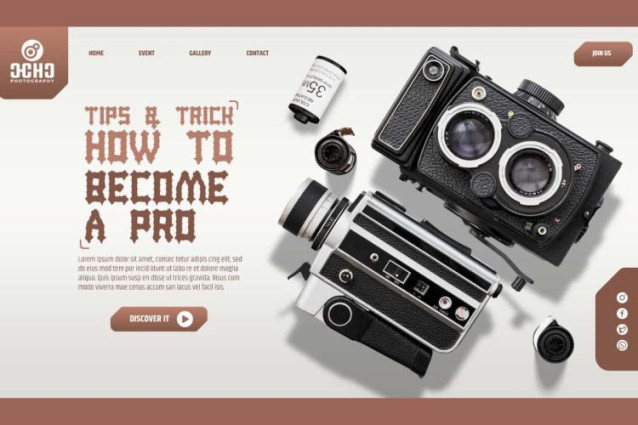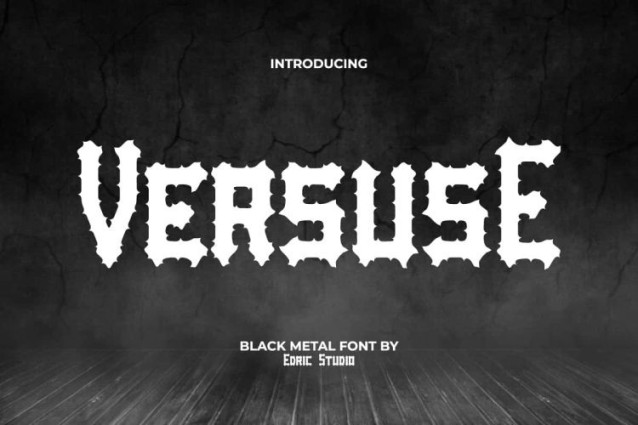
Versuse Font
Versuse Font is a horror blackletter black metal themed display font with sharp details that represent death metal. It is flexible and adaptable in both retro and modern display purposes. This font is perfect for branding, flyer, greeting cards, illustrations, invitations, label tag, logos, mockup, packaging designs, posters, screen printing, stationery design, sticker, t-shirts, template, text art on background, typographic design, website, and so much more.
Versuse Font includes a complete set of ALL CAPS in different sizes for upper and lower case letters, Numbers, Punctuation and Symbols. This black metal font is in a thriller-horror style, inspired by the film and designed with an elegant and thrilling horror touch. It will be a great choice for a retro-urban design with a hardcore feel. Perfect for apparel, accessories, authors, band, barber, clothing brand, event or festival horror, film, graphic design, movie, music, photography, publisher, vehicle workshops, web designer, wood craftsman, and many more.